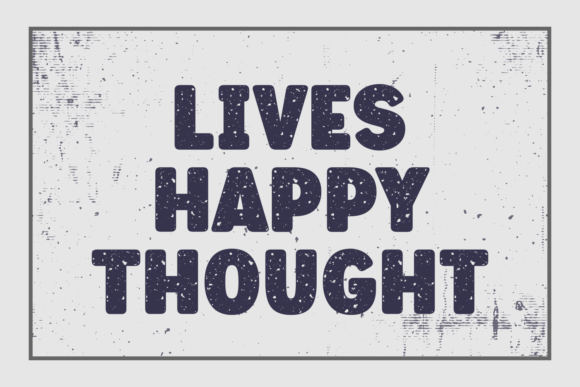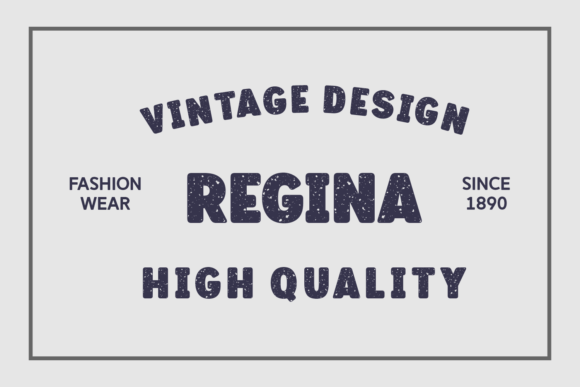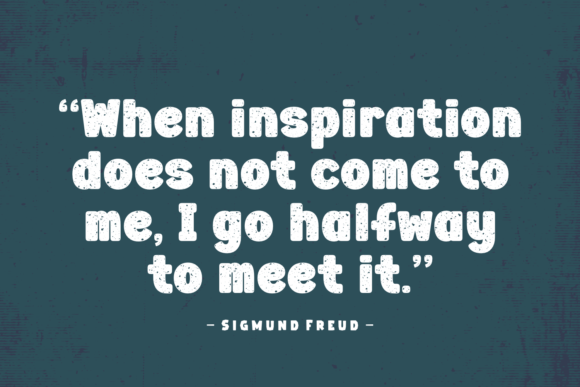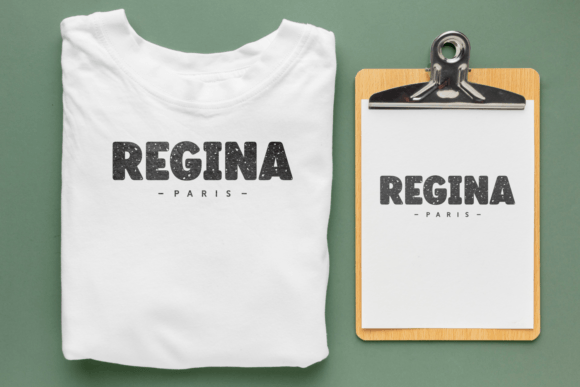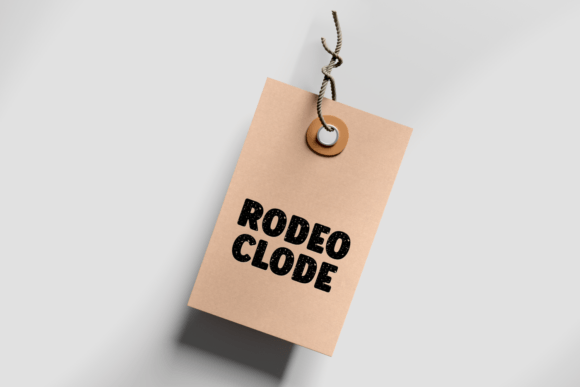
The Funky Moment Font: A Vintage Dream for Creative Minds
With its unique, vintage texture and cool display style, Funky Moment instantly elevated my design game. I knew right then and there that I had to share this fantastic find with fellow designers, crafters, and creative hobbyists. So, let’s dive into what makes this font so special and how you can make the most of it in your projects.
An Honest Review: What I Love and a Few Quirks
- ✅ Unique vintage texture that adds a special touch to any design
- ✅ Highly versatile and perfect for posters, stickers, stationery, apparel designs, and more
- ✅ Easy to read, even in larger sizes, making it perfect for headlines and titles
- ✅ Well-suited for both digital and print projects
- ⚠️ Some characters may require manual kerning for optimal spacing
- ⚠️ Limited language support, mainly focused on English and basic Latin characters
While the true story behind Funky Moment’s creation remains a mystery, it’s easy to imagine a designer with a passion for vintage aesthetics, pouring their heart and soul into crafting this unique font. Perhaps they drew inspiration from classic posters, vinyl records, or antique typography. Whatever the motivation, the end result is a font that’s both nostalgic and refreshingly modern.
Q: What type of projects is Funky Moment best suited for?
A: Funky Moment is perfect for a wide range of projects, including posters, stickers, stationery, apparel designs, and more. Its versatility makes it an excellent choice for both digital and print designs.
Q: Is Funky Moment a script font?
A: No, Funky Moment is a display font with a unique, vintage texture. While it has some decorative elements, it’s not a traditional script font.